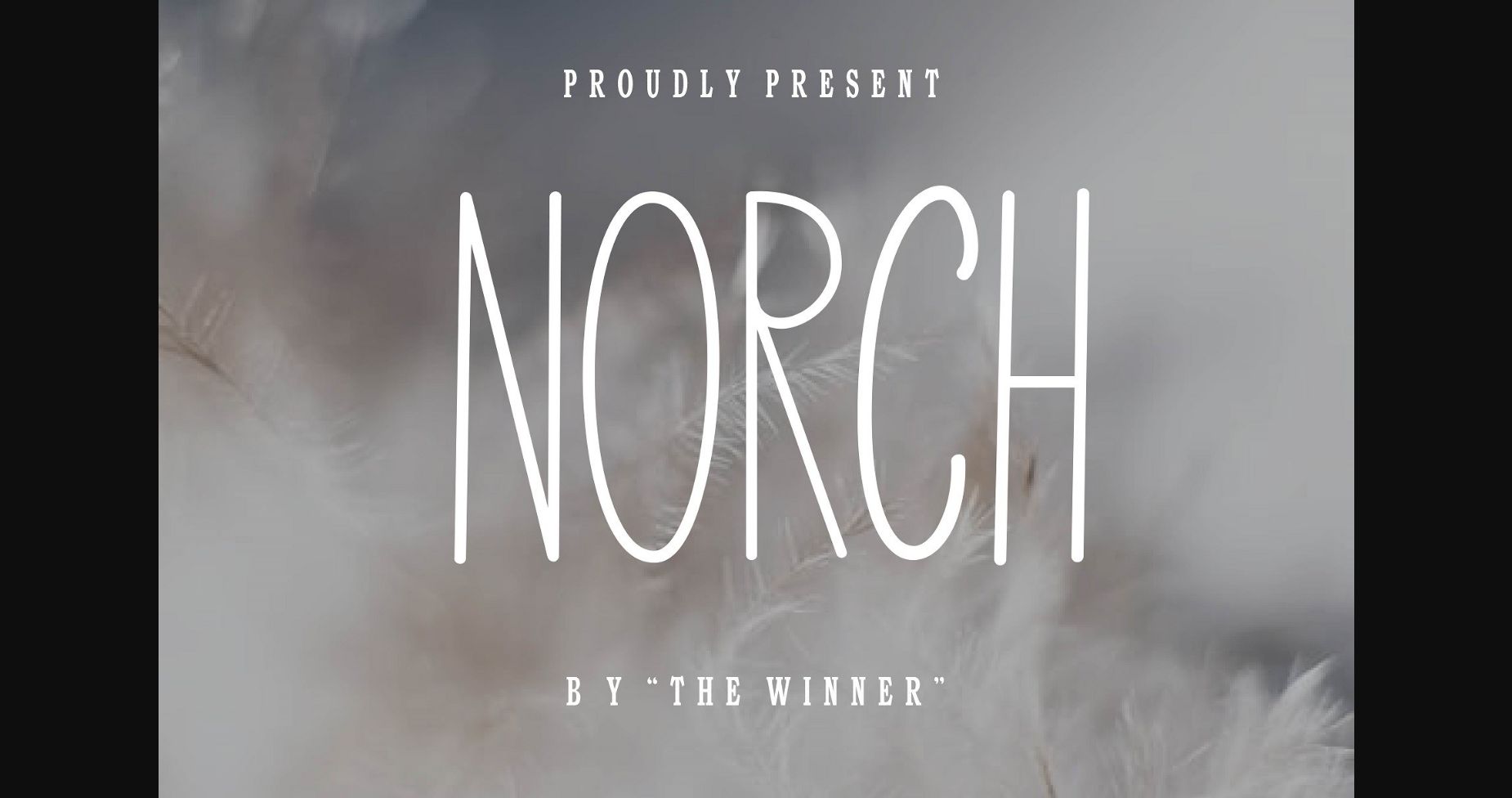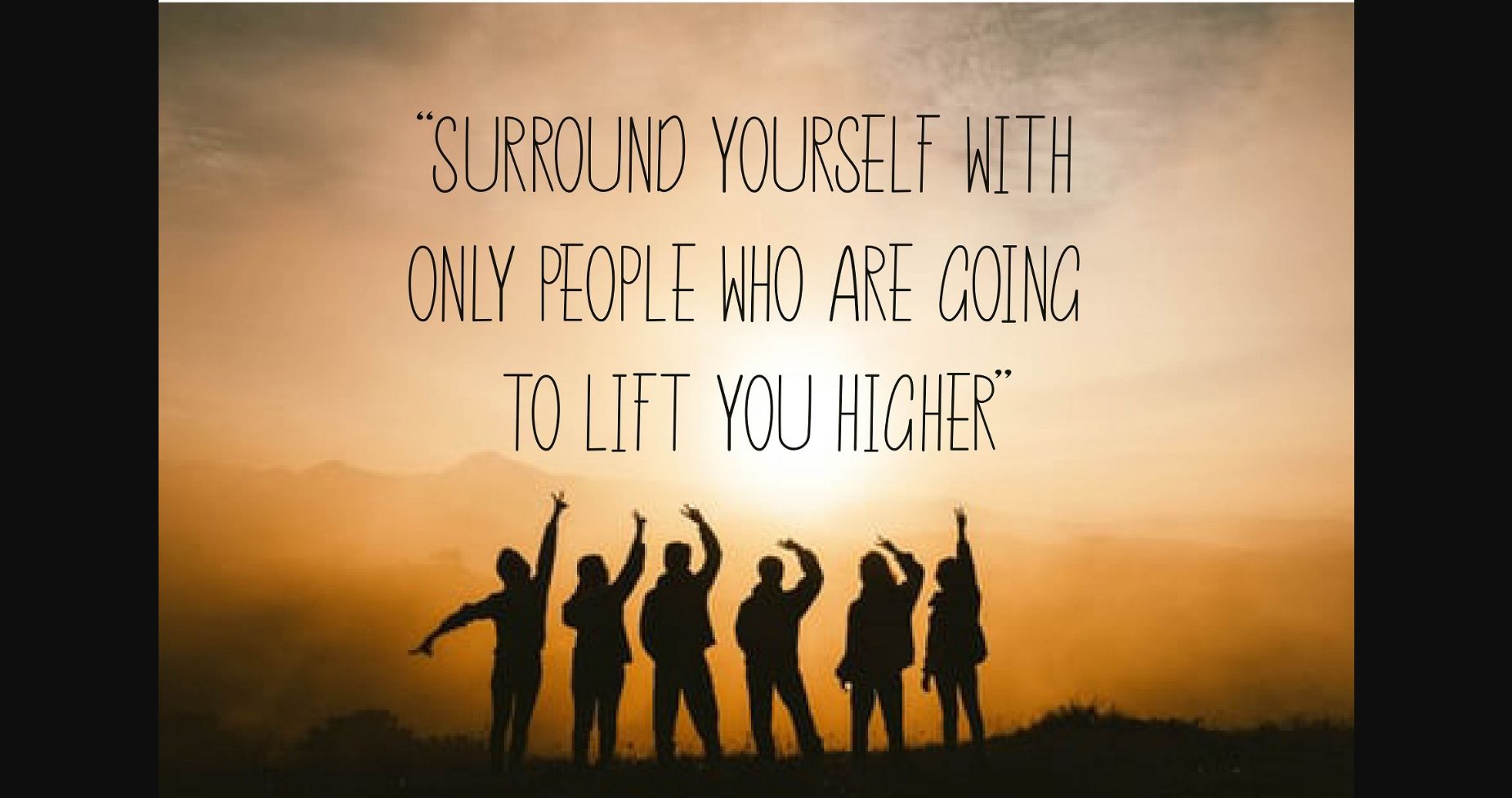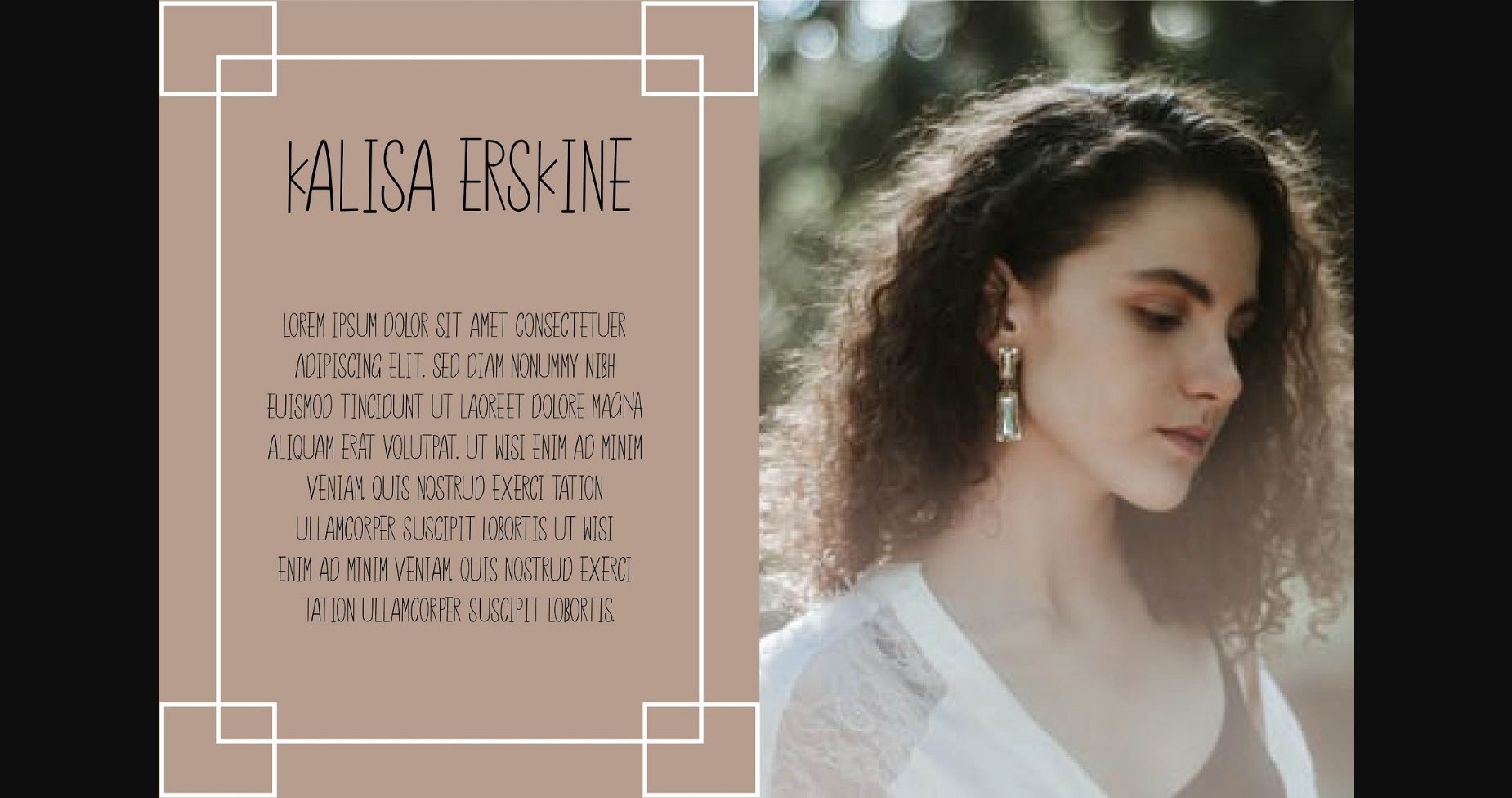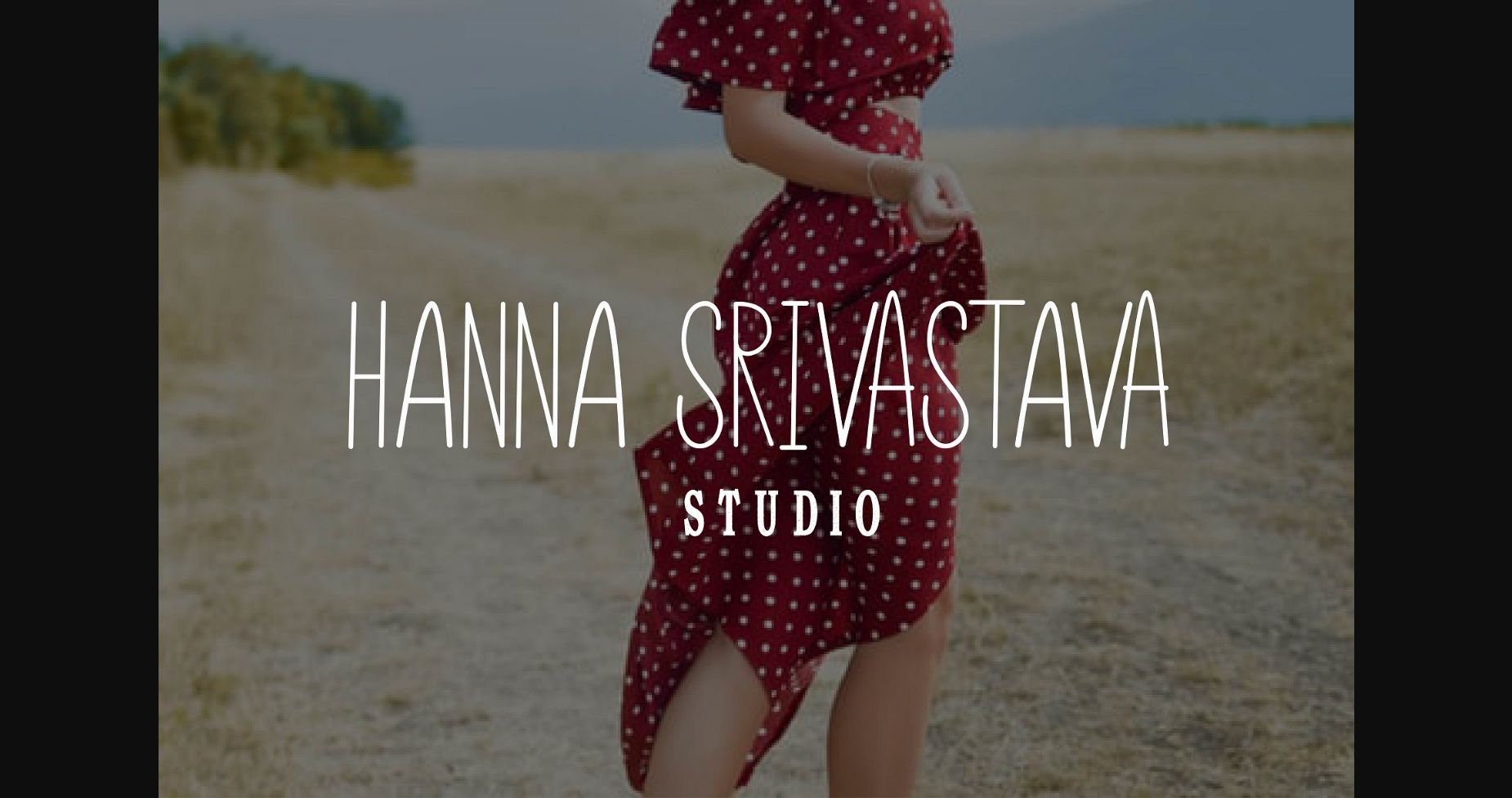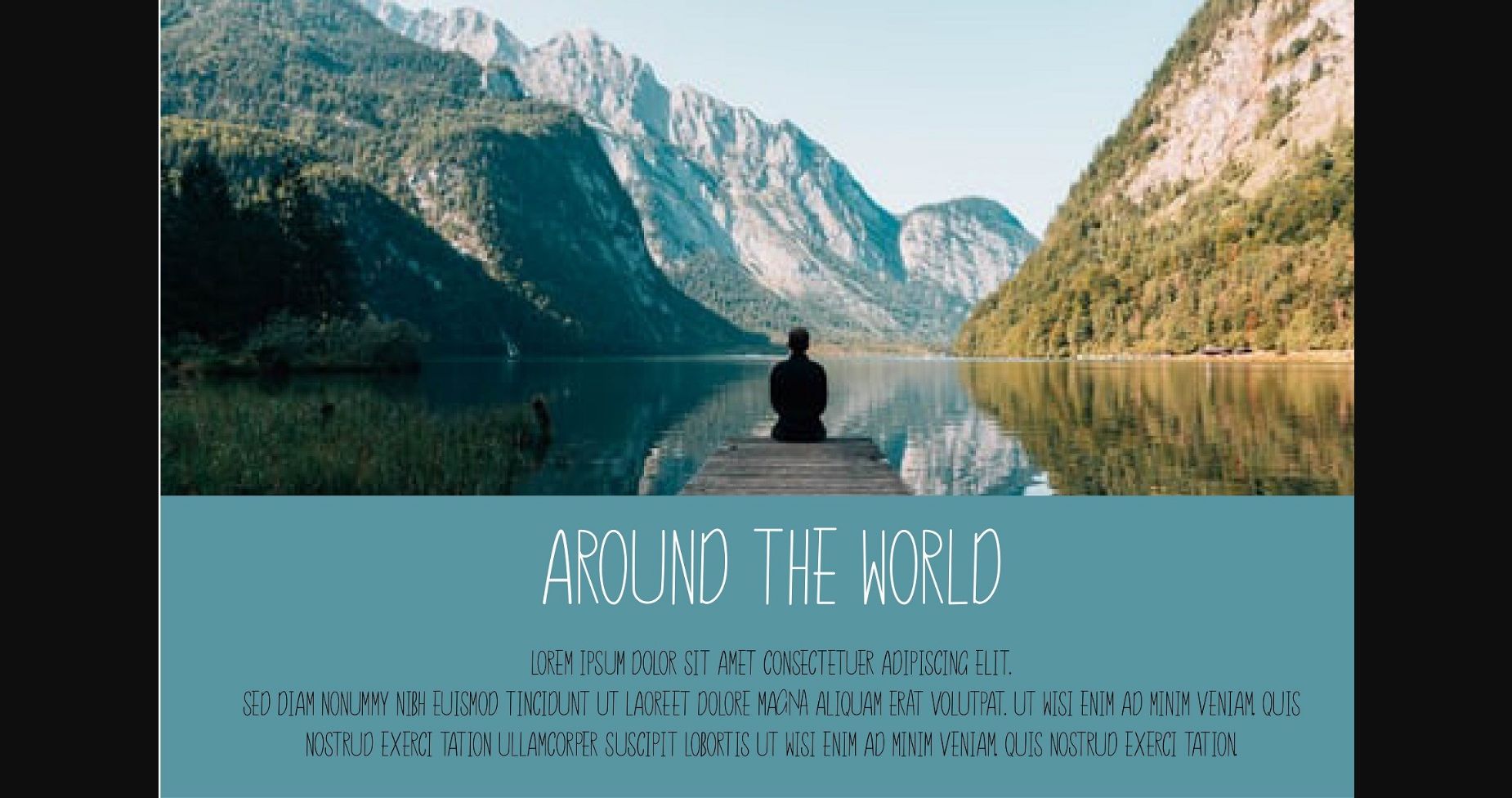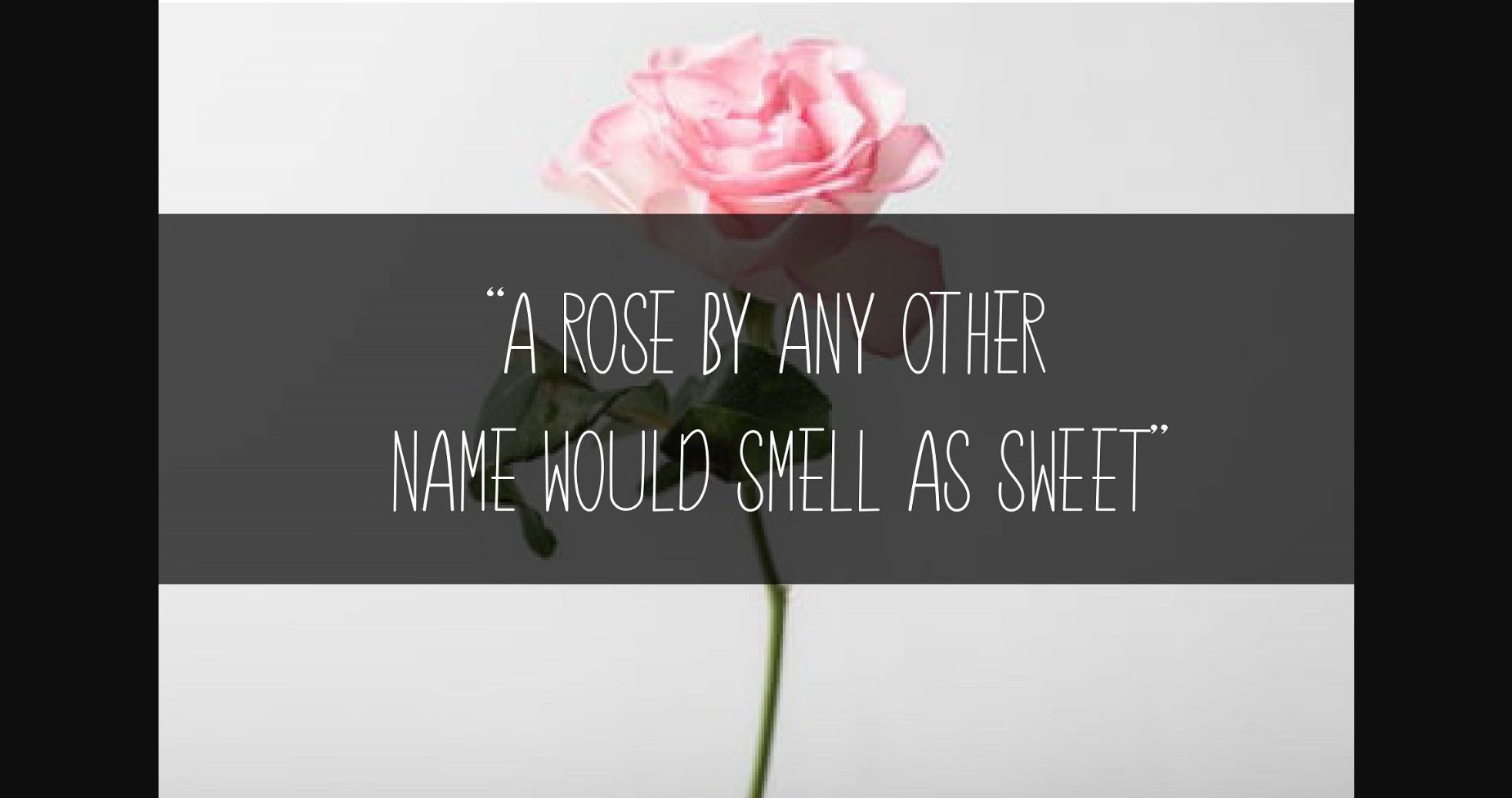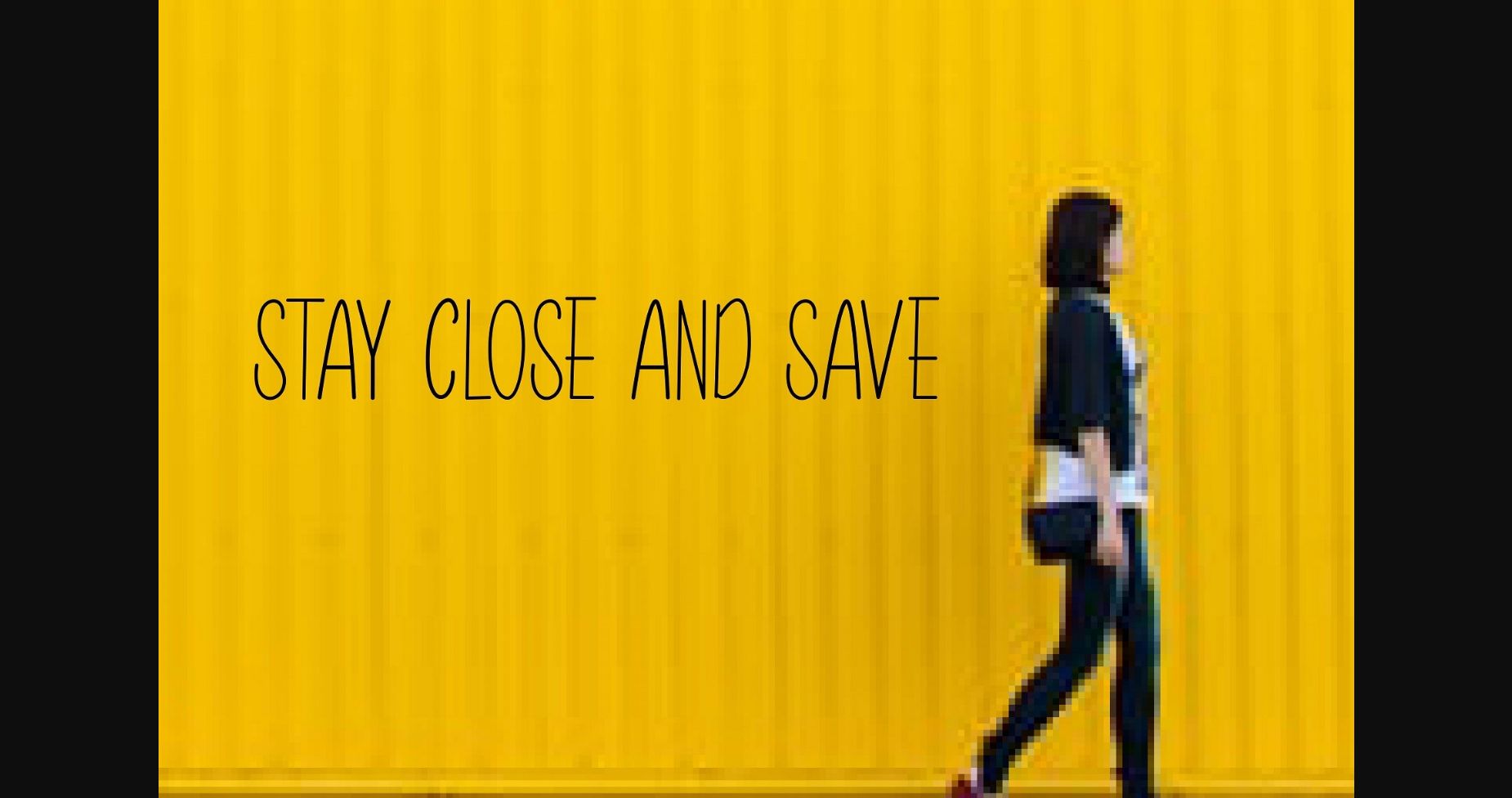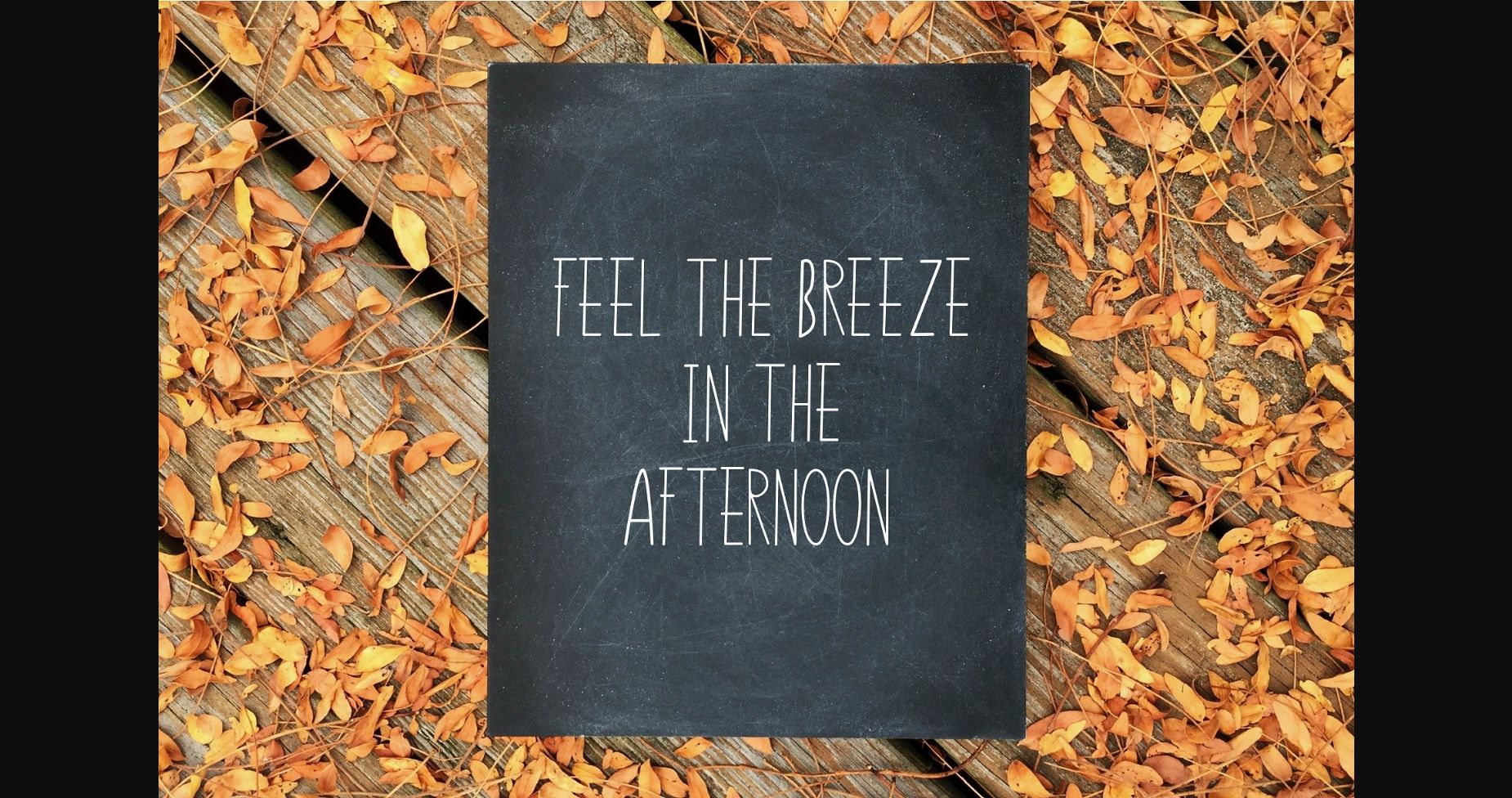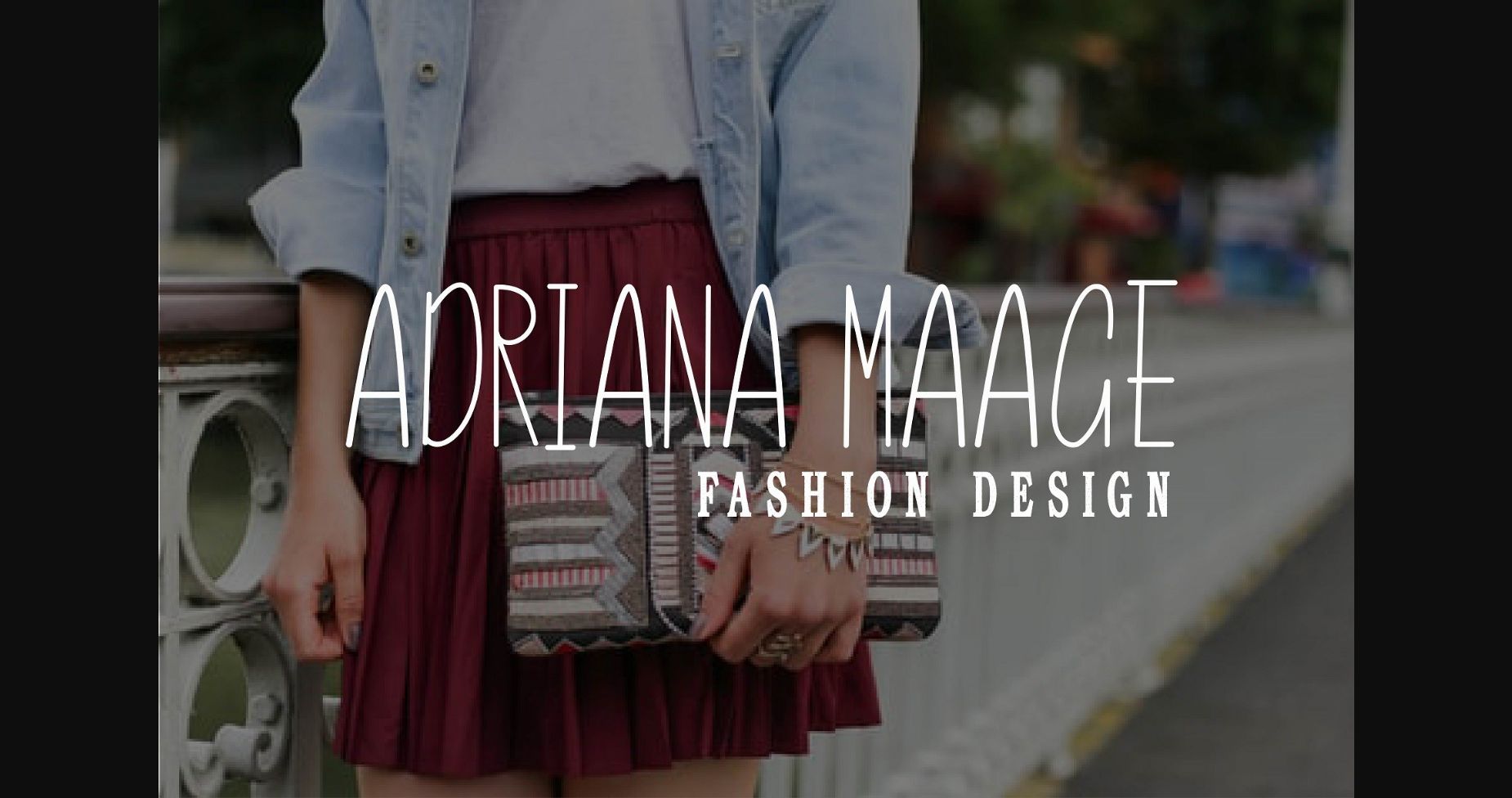
Norch Font
About Norch Font
Introducing Norch – a slim and minimalistic sans serif font. It’s perfect for branding, product packaging, invitations, quotes, t-shirts, labels, posters, or any logo you want to develop. Make all your design projects more attractive and take your designs to the next level with Norch!